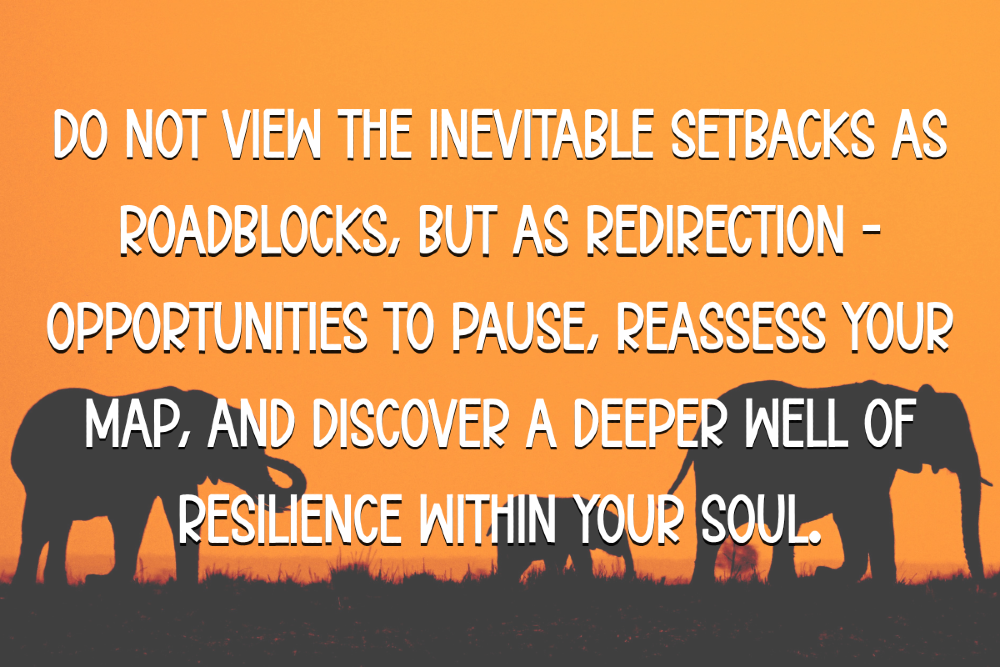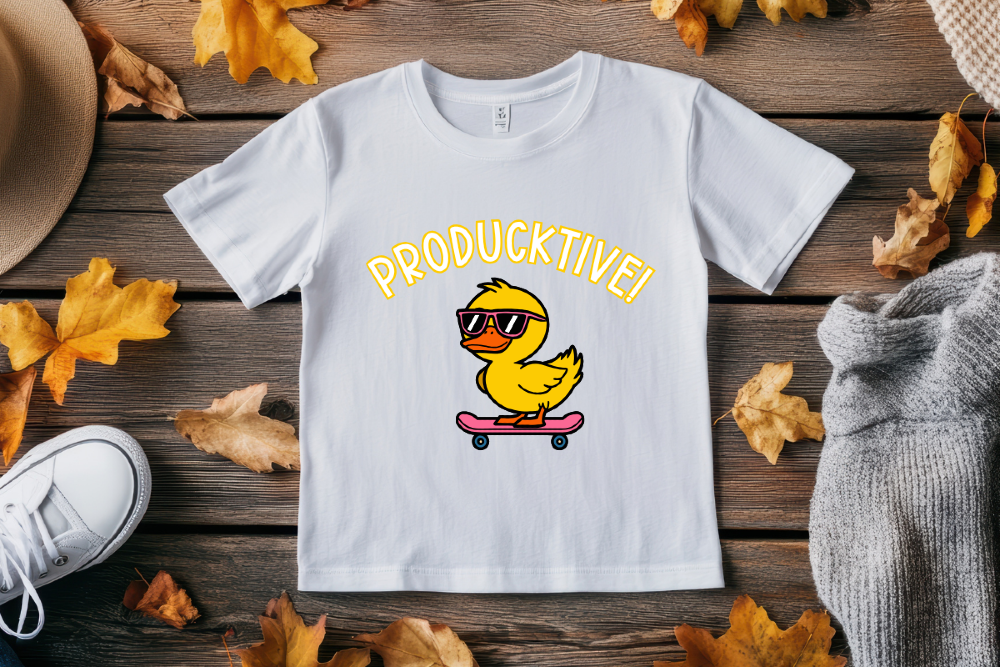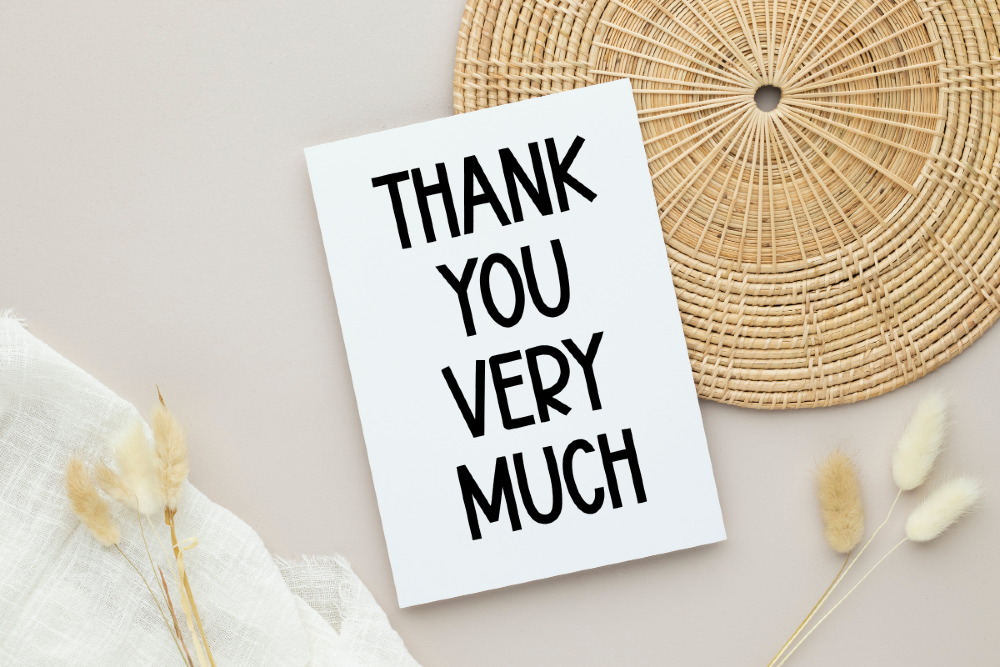
Elephant is an extra-tall sans serif display font built around strong vertical proportions and clean, confident shapes. Its tall letterforms give it a bold, architectural feel, while subtle variations in stroke width keep it from looking stiff or mechanical.
This font is designed for high-impact text where clarity and presence matter. It works especially well for posters, movie titles, logos, and branding projects that need to stand out quickly. Elephant is also a good fit for athletic branding, apparel graphics, and food or beverage packaging where strong typography plays a central role.
From a technical side, the font includes a full set of uppercase and lowercase letters, numbers, and extensive punctuation. This makes it flexible enough for both short headlines and more structured layout work.